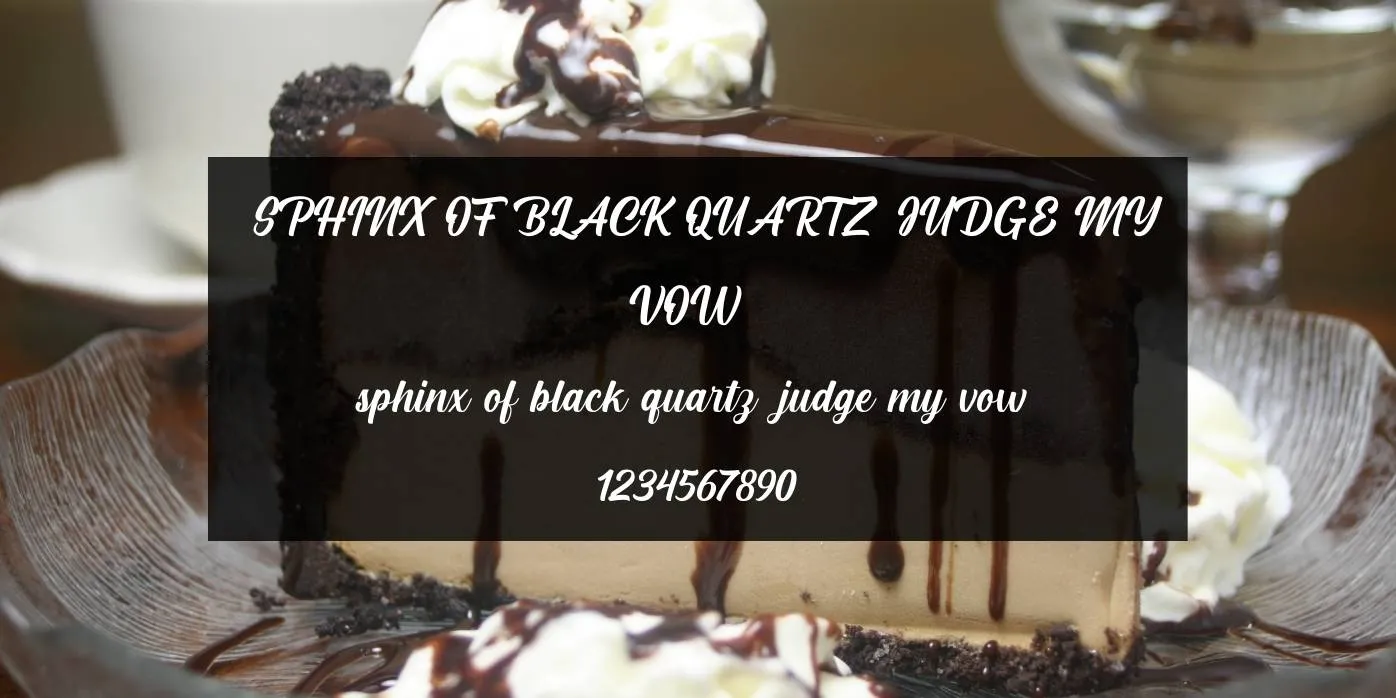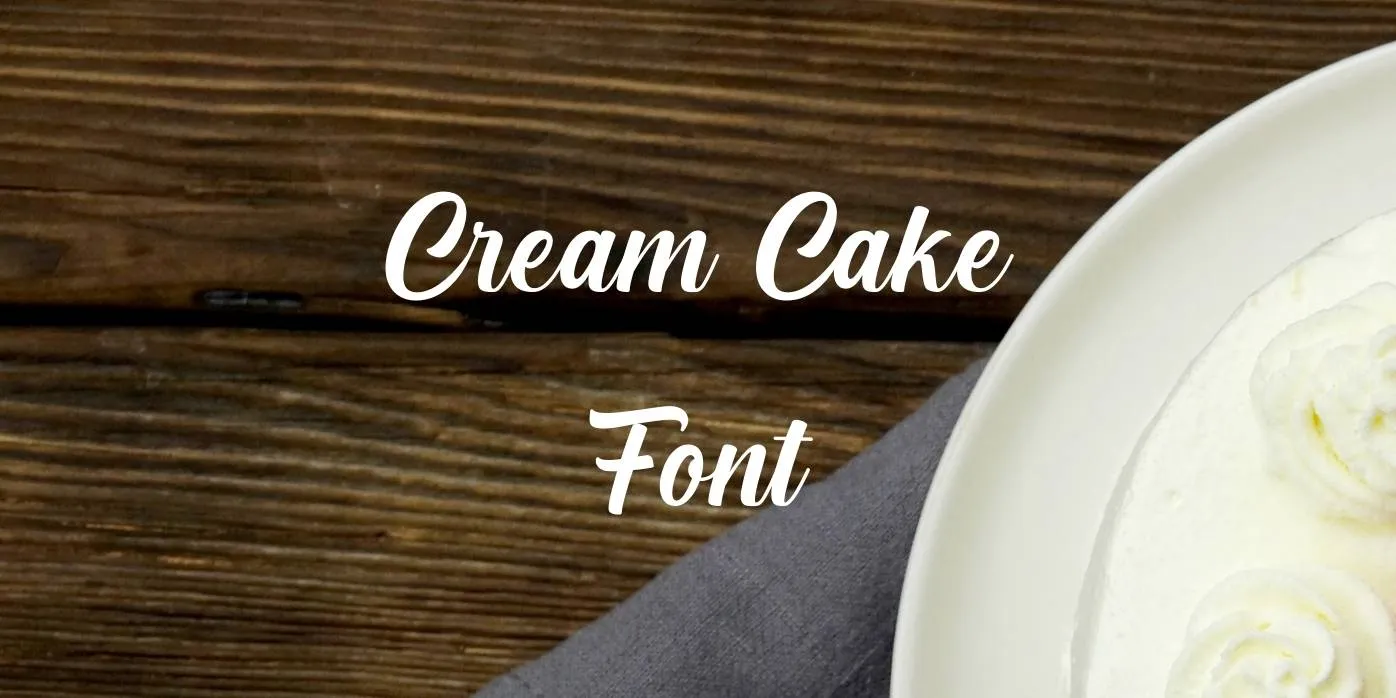
Cream Cake Font
In this post, we present a marvelous typeface known as Cream Cake Font. This typeface belongs to the script font family and this family was developed by EF Studio. This family includes various font styles such as regular, bold, and italic. You can use this typeface for various purposes such as headings, signatures, badges, logos, quotes, and much more.
Cream Cake Typeface has a very unique and elegant design. This typeface is perfect for those who are looking for a stylish and sophisticated font. The best thing about this typeface is that it is available in both TTF and OTF formats. You can also use this typeface for different programs like Canva, and Adobe.